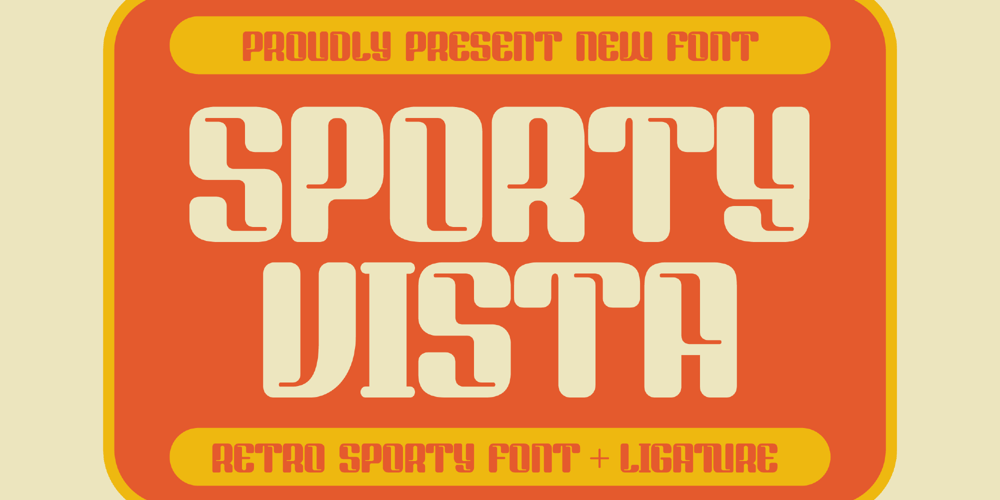
Sporty Vista Font Family was designed by Heru Utama Putra and published by Letterena Studios. Sporty Vista contains 2 styles and family package options. Sporty Vista is a classic serif font with a unique style and modern look. It is perfect for elegant and luxury logos, book or movie title design, fashion brands, magazines, clothes, lettering, quotes, and much more. Add it to any of your creative projects, and you will be amazed by the results.This font is PUA encoded, which means you can access all of the glyphs and swashes with ease!